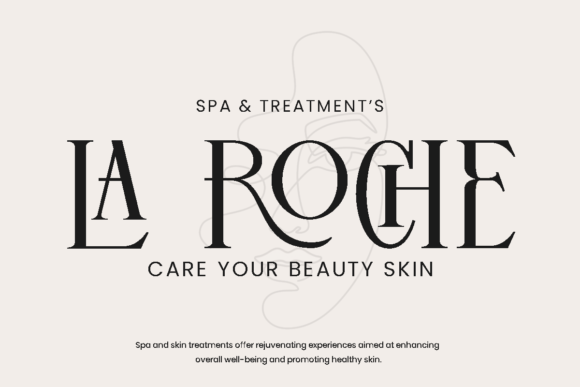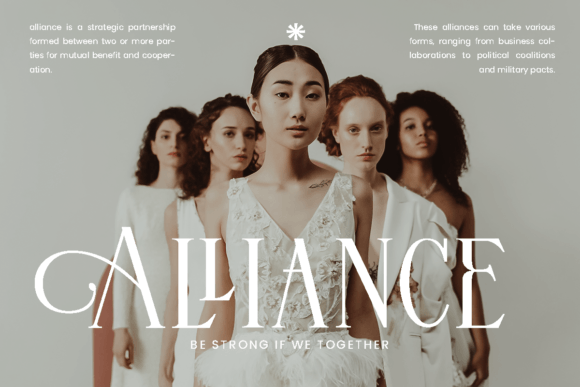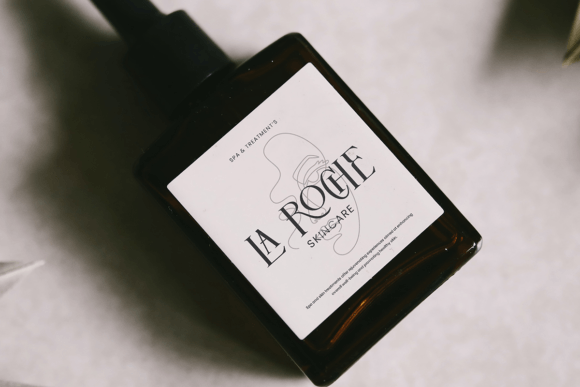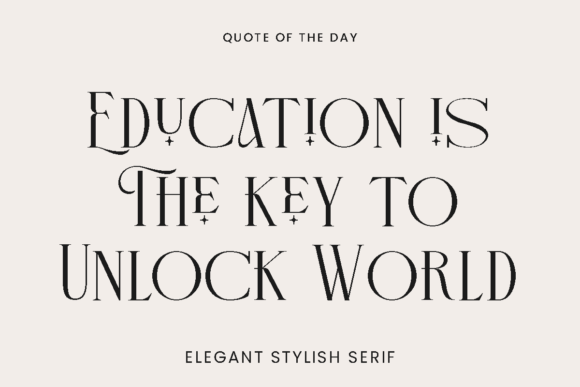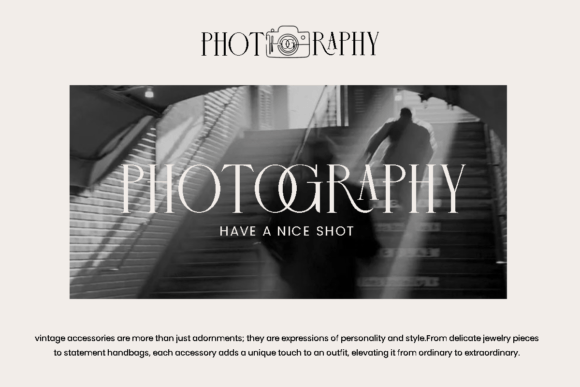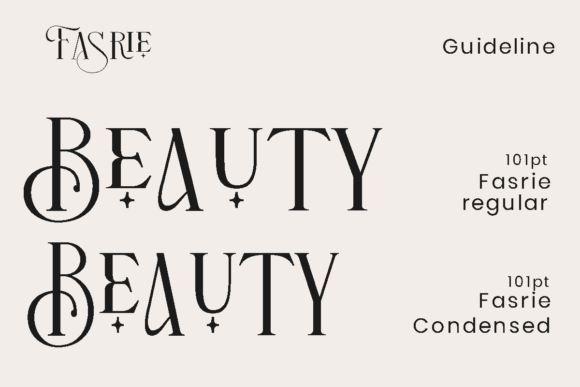
I still remember the frustration of working on a project, hours spent perfecting every detail, only to be stumped by one thing: finding the right font. My client wanted something elegant, classy, and modern for their branding, but everything I tried seemed to fall flat. That’s when I discovered Fasrie Font, a game-changer in the world of typography.
First Impressions: A Love Affair with Fasrie
Fasrie Font is a modern, elegant, and classy serif typeface that has become my go-to for display headings, logos, branding, magazines, product packaging, and invitations. Its clean lines and smooth curves add an extra touch of class to any project.
- ✨ Elegant and classy design, perfect for high-end branding
- ✅ Clean lines and smooth curves for a sophisticated look
- ⚡️ Highly versatile, suitable for various design projects
- 📚 Extensive OpenType features, glyphs, and stylistic alternates
- 🤔 Limited availability of condensed or expanded versions
- ⚠️ May not be suitable for body text due to its display-focused design
The Story Behind Fasrie Font
Fasrie Font was designed with the goal of creating a modern, elegant, and classy serif typeface that would meet the needs of designers seeking a sophisticated look. The designer drew inspiration from classic serif fonts, refining and updating them to create a unique and versatile typeface.
| Font Name | Fasrie Font |
| Author | pandekastudio |
Q: What is Fasrie Font best used for?
A: Fasrie Font is best used for display headings, logos, branding, magazines, product packaging, and invitations.
Q: Can I use Fasrie Font for body text?
A: While Fasrie Font is primarily designed for display text, it may not be the best choice for body text due to its elegant and refined design.
Q: Does Fasrie Font come with OpenType features?
A: Yes, Fasrie Font comes with extensive OpenType features, glyphs, and stylistic alternates, allowing for a high degree of customization.